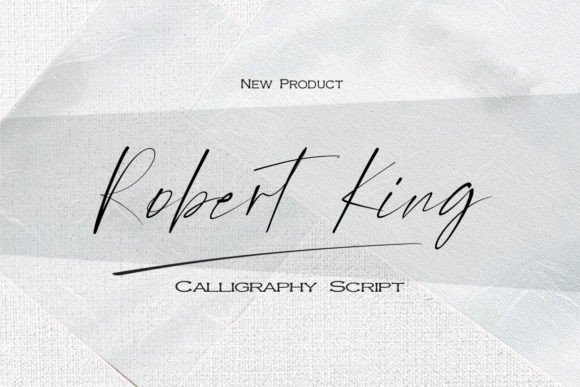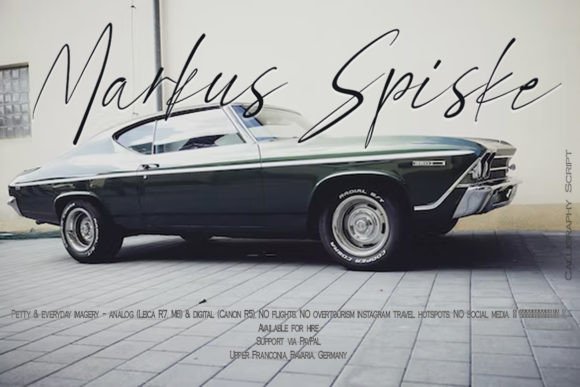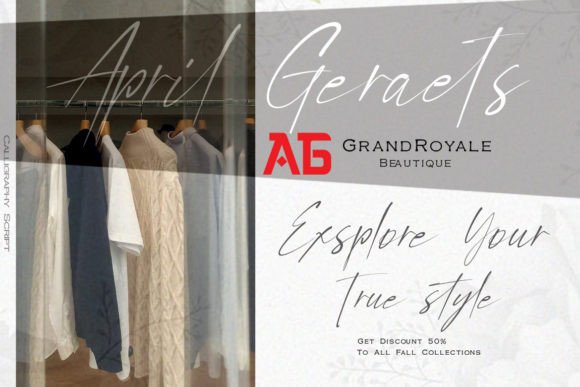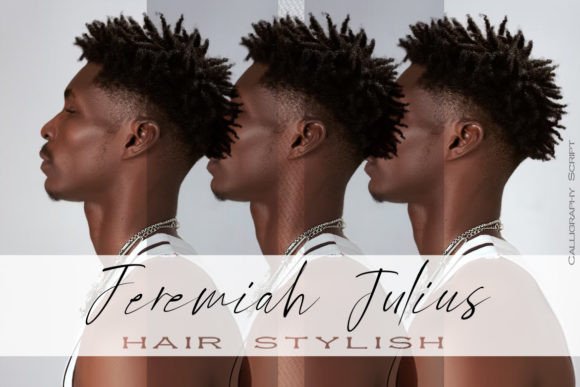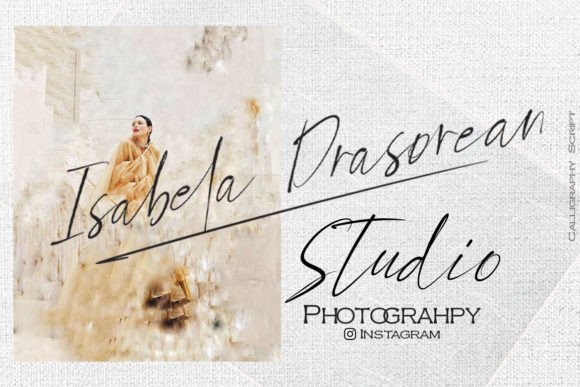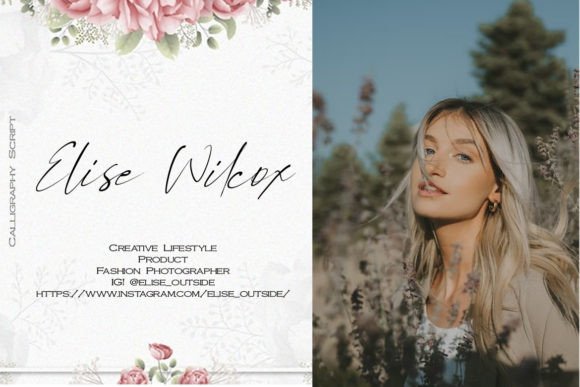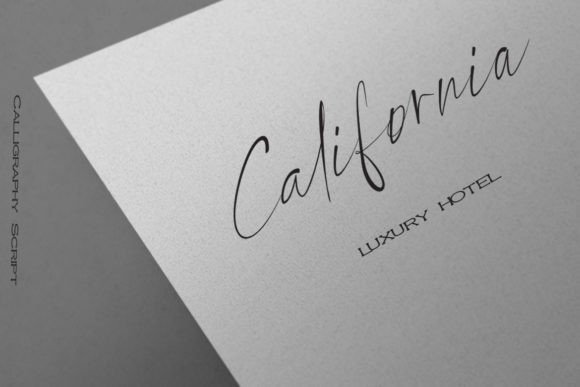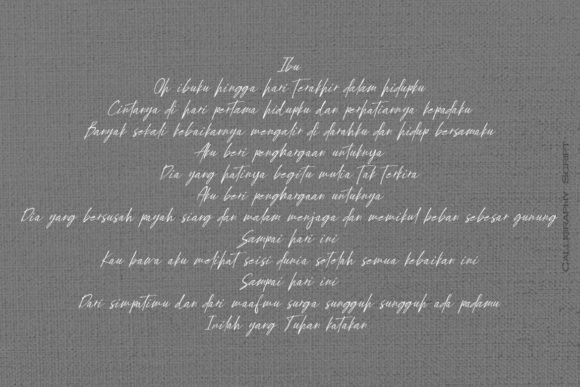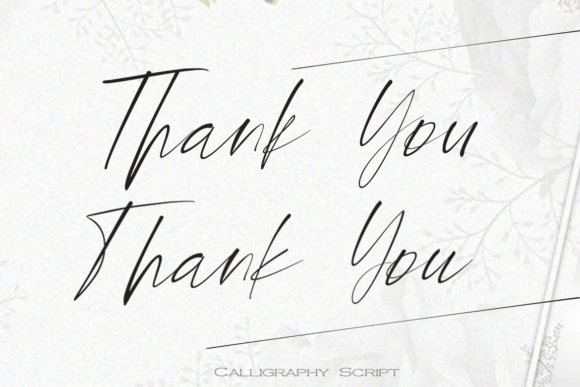
Robert King Font
Robert King Script Font – Elegant Typeface for Creative Projects
The Robert King Script Font is a dainty and elegant typeface that adds style and charm to any design. With its flowing handwritten strokes, it offers a natural and classy feel. Whether used for branding, invitations, or photography, this font will make your work look refined and professional.
A Script Font with Elegant Flow
The Robert King Script Font blends calligraphic grace with modern clarity. Its smooth and balanced letters create a look that feels personal but also polished. As a result, it is ideal for quotes, advertisements, and social media posts.
Perfect for Invitations and Branding
This font works beautifully for weddings, greeting cards, and thank-you notes. The Robert King Script Font also enhances business logos, labels, and product packaging. By using it, you can give your work a professional yet warm look.
PUA Encoding for Creative Access
A big advantage of this font is that it is fully PUA encoded. This means you can use all its glyphs and swashes without special software. Therefore, you have the freedom to add flourishes and custom touches to your designs.
Why Designers Love Robert King Font
Designers value fonts that are both stylish and useful. The Robert King Script Font fits that need. It is elegant enough for formal projects, but also simple enough for casual use. Its balance of beauty and readability makes it a reliable choice.